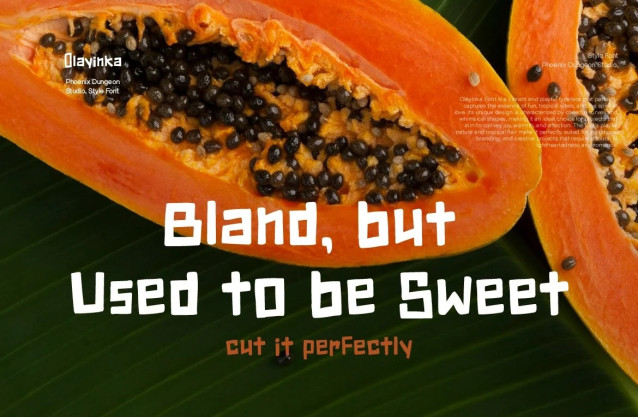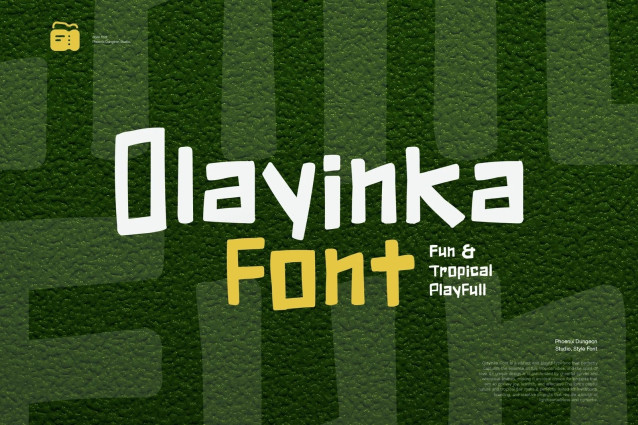
Olayinka Playful Font
Olayinka Playful Font is a handwriting font that radiates natural charm and serene beauty with a playful twist. Its fluid, organic strokes mimic the effortless elegance of hand-drawn lettering, creating a sense of warmth and approachability. The font’s gentle curves and relaxed rhythm evoke a calm, inviting atmosphere, while its subtle whimsical details add a touch of fun. Ideal for beauty branding, personal invitations, and creative projects, Olayinka enhances any design with its harmonious blend of natural grace and cheerful character, making it perfect for conveying a sense of both sophistication and ease.